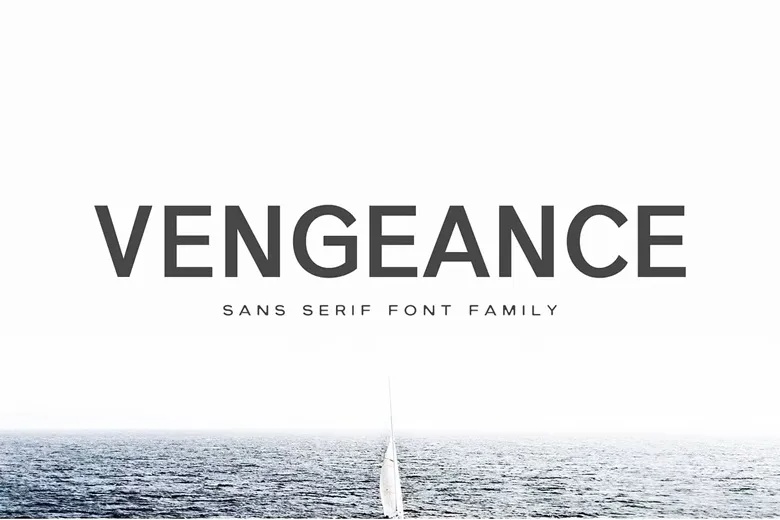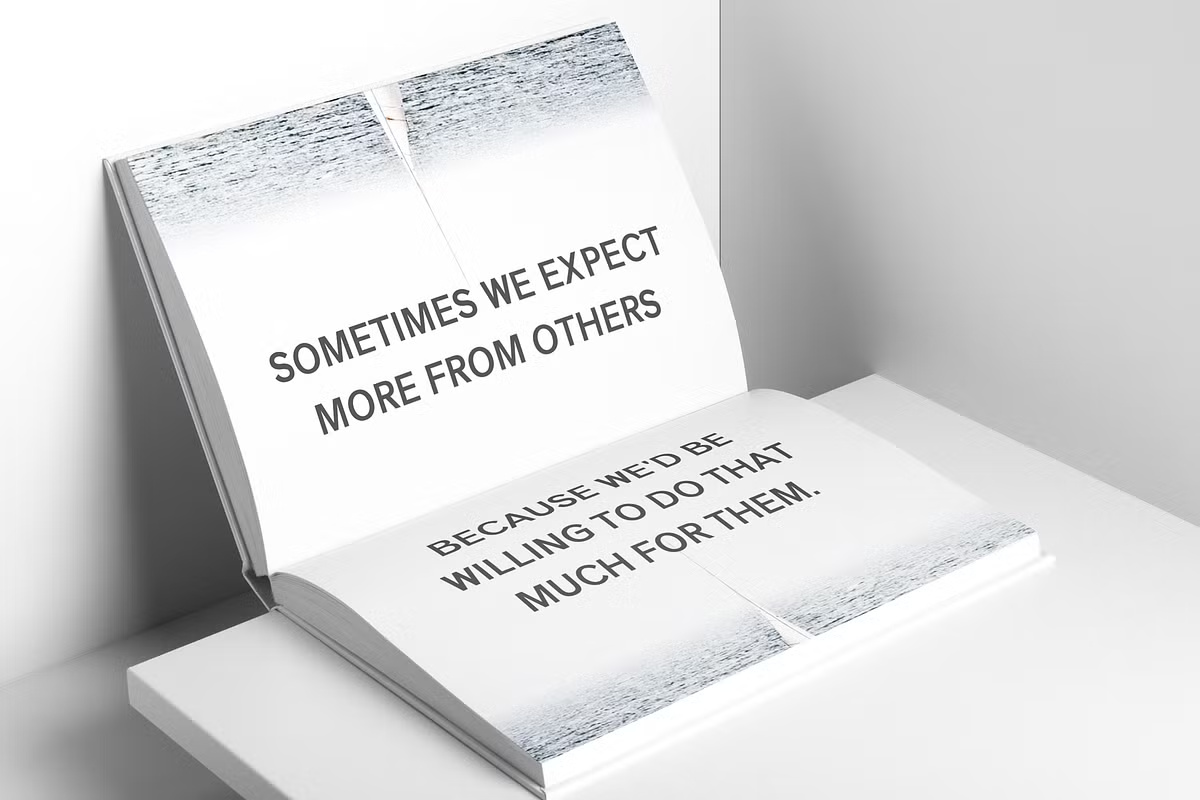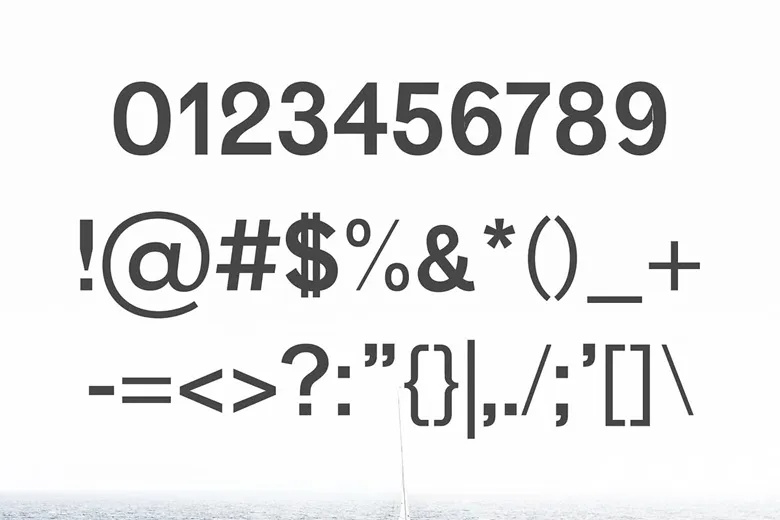
Despite the dramatic name, Vengeance is a calm, sensible sans. Creativetacos drew it in the grotesque tradition, with even strokes and fairly closed curves, so it sits close to the familiar newspaper sans faces. The cover sets “VENGEANCE” in dark grey caps over a white sky and a lone sailboat.
The family has seven styles: Thin, Light, Regular, Medium, Bold, Oblique and an Outline cut. The book mock-up sets a short quote in caps across an open spread, and the numeral sheet shows sturdy figures with a round 0 and a tidy ampersand. It covers Latin, Latin Supplement and Latin Extended-A.
Best uses for Vengeance
- Corporate and startup branding
- Book covers and quotes
- Presentation slides
- Website headings
- Simple, clean posters
Vengeance is neutral, so a serif adds character. Libre Baskerville works for body text. Playfair Display gives headlines more contrast. For a second sans, Lato sits well beside it.
Vengeance Sans Serif Font